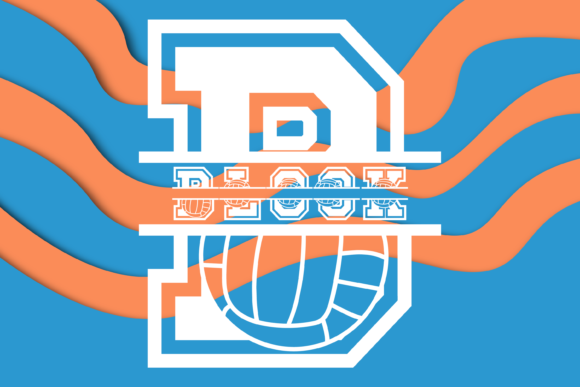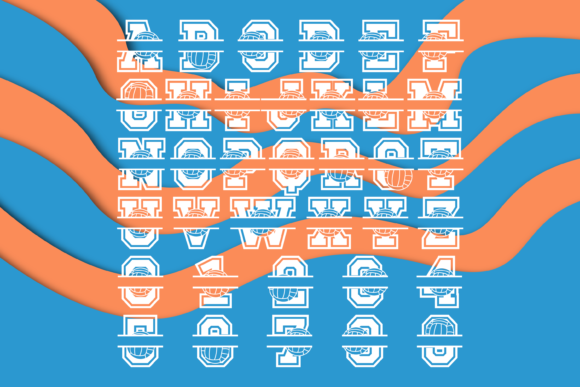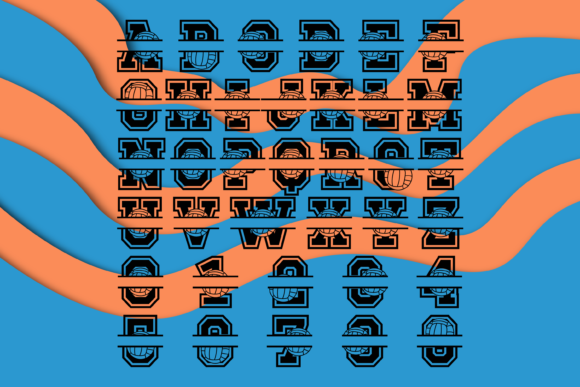
Block Font
About the Block Font
Meet Block Font, a stunning font that brings a touch of elegance and professionalism to any design. Block is an incredibly cool decorative font. Whether you use it for custom designs, DIY crafts, or just any creation that requires a lovely touch, this font will be an amazing choice.